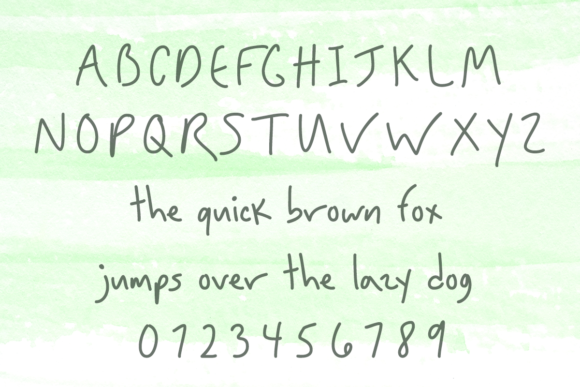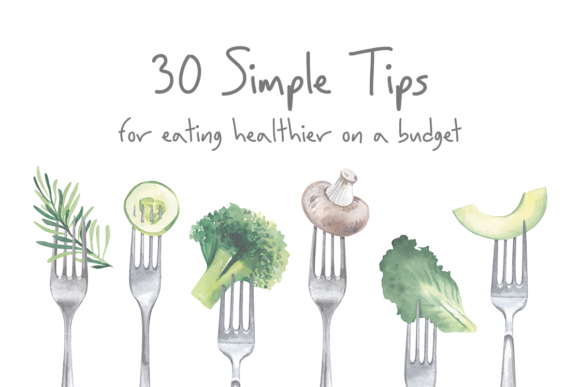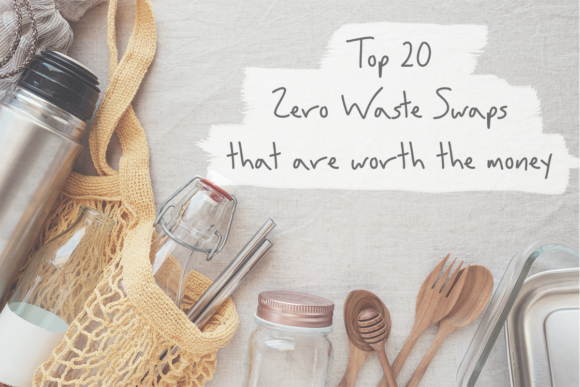
Baby Cucumber Font: The Quirky and Playful Choice for Designers and Crafters
Are you looking for a font that adds a touch of whimsy and playfulness to your designs? Look no further than the Baby Cucumber font! This quirky and casual handwritten font is perfect for creating a wide range of projects, from blog post graphics and shop logos to product labels and greeting cards.
What is Baby Cucumber Font?
Baby Cucumber is a unique and charming font that is sure to capture the attention of your audience. Its handwritten style gives it a personal and friendly feel, making it ideal for designers and crafters who want to add a touch of personality to their work. The font’s quirky and casual nature makes it perfect for creating a wide range of projects, from fun and playful designs to more sophisticated and elegant ones.
Key Features of Baby Cucumber Font
- Quirky and casual handwritten style: The Baby Cucumber font has a unique and playful style that is sure to add a touch of whimsy to your designs.
- Versatile: This font is perfect for creating a wide range of projects, from blog post graphics and shop logos to product labels and greeting cards.
- Easy to read: Despite its playful style, the Baby Cucumber font is easy to read and understand, making it perfect for use in body text and headlines.
- Supports multiple languages: The Baby Cucumber font supports multiple languages, making it a great choice for designers and crafters who work with international clients.
Uses for Baby Cucumber Font
The Baby Cucumber font is incredibly versatile and can be used for a wide range of projects, including:
- Blog post graphics: Add a touch of whimsy to your blog post graphics with the Baby Cucumber font. It’s perfect for creating eye-catching titles and headings.
- Shop logos: The Baby Cucumber font is a great choice for shop logos, especially for businesses that want to convey a playful and friendly image.
- Product labels: The font’s playful style makes it perfect for use on product labels, especially for businesses that sell handmade or craft products.
- Greeting cards: The Baby Cucumber font is ideal for creating cute and personalized greeting cards for special occasions.
- Cartoon or comic-themed projects: The font’s quirky style makes it perfect for use in cartoon or comic-themed projects, such as animations, comics, and graphic novels.
Why Choose Baby Cucumber Font?
There are many reasons why you should choose the Baby Cucumber font for your next project. Here are just a few:
- Unique and playful style: The Baby Cucumber font has a unique and playful style that is sure to capture the attention of your audience.
Tips for Using Baby Cucumber Font
Here are a few tips for using the Baby Cucumber font:
- Use it sparingly: The Baby Cucumber font is a playful font, so it’s best to use it sparingly to avoid overwhelming your design.
- Pair it with other fonts: The Baby Cucumber font pairs well with other fonts, especially sans-serif fonts. Try pairing it with a clean and simple font to create a striking contrast.
- Experiment with colors: The Baby Cucumber font looks great in a range of colors, so don’t be afraid to experiment and find the perfect color for your design.
In conclusion, the Baby Cucumber font is a quirky and playful font that is perfect for designers and crafters who want to add a touch of whimsy to their work. Its unique and handwritten style makes it ideal for creating a wide range of projects, from blog post graphics and shop logos to product labels and greeting cards. With its ease of use, affordability, and high-quality, the Baby Cucumber font is a great choice for anyone looking to add a touch of personality to their designs.